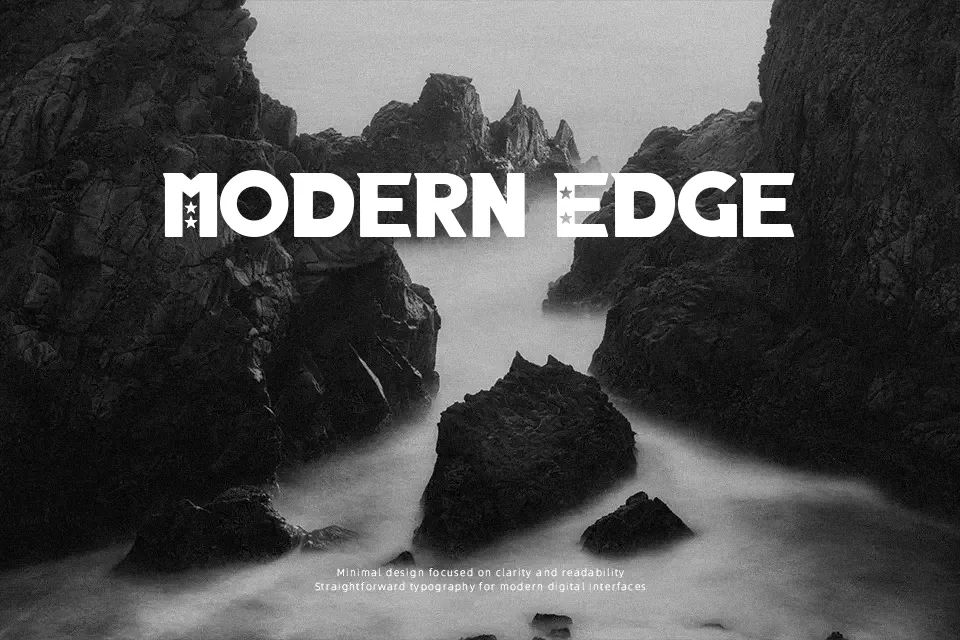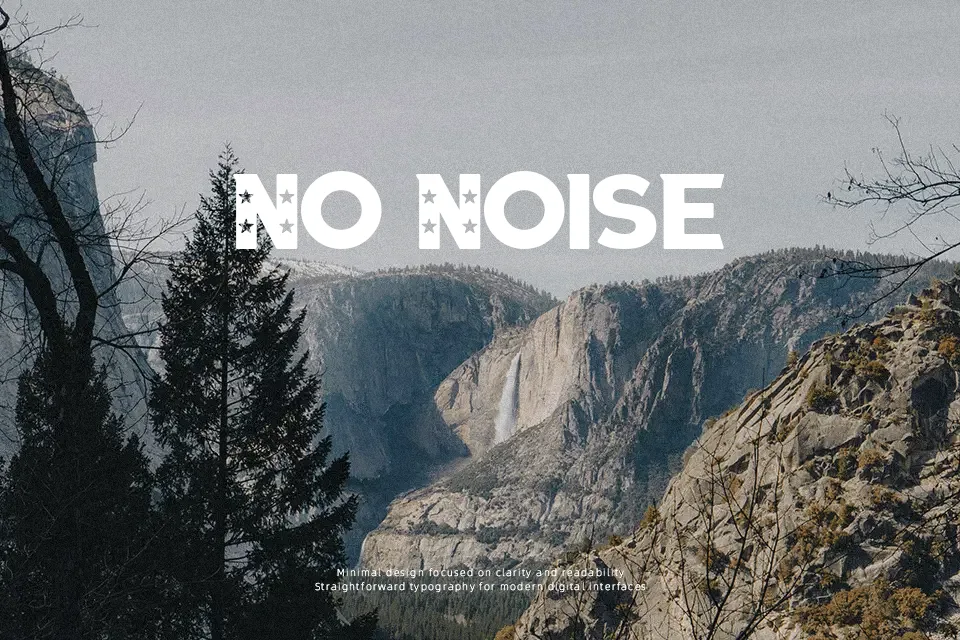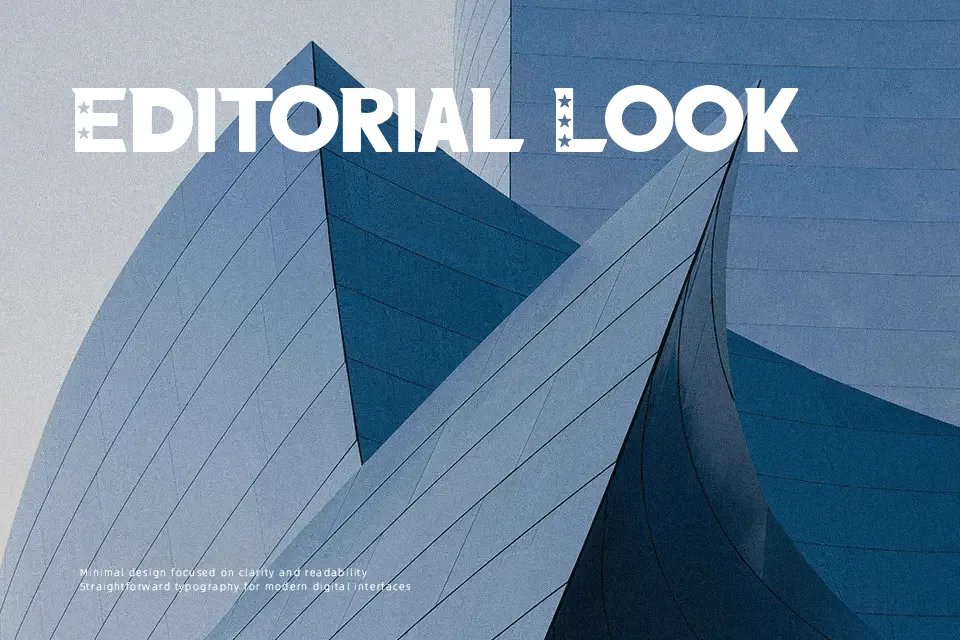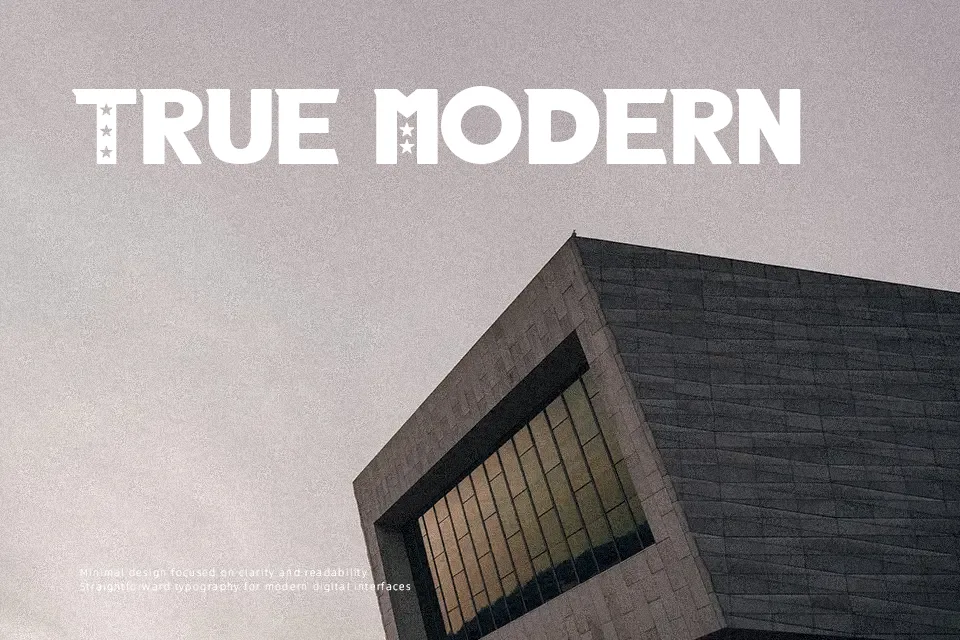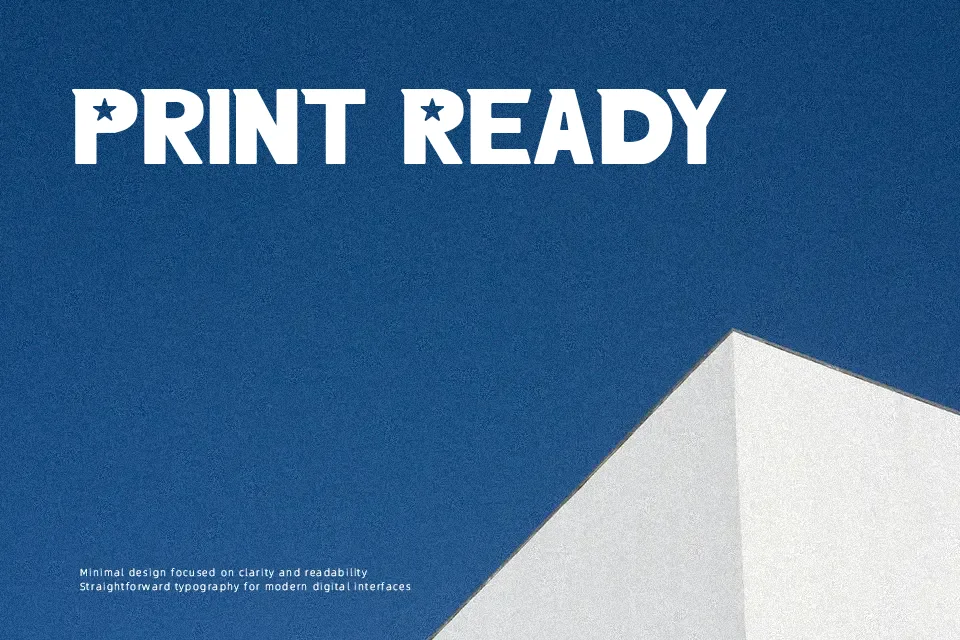
Captain Of America Font
Captain Of America Font delivers robust visual weight through its thick geometric strokes, solid vertical stems, and distinct decorative cutout details. The letterforms feature wide, uniform proportions combined with tight character spacing, which creates a dense and commanding rhythm across large displays. This design excels in short-form applications such as superhero merchandise, festival branding, and dynamic video thumbnails. The heavy strokes maintain excellent legibility at substantial sizes, ensuring that standalone titles command attention. However, the compact spacing and ornate glyph contours significantly reduce legibility in continuous text blocks, making the typeface unsuitable for long paragraphs or small captions.
Best For: themed event banners, sports apparel graphics, comic title cards, merchandise packaging
Not Ideal For: continuous paragraph text, mobile interface labels, corporate reports, small captions
Perfect for headline, logo, and packaging, with a bold and decorative style.